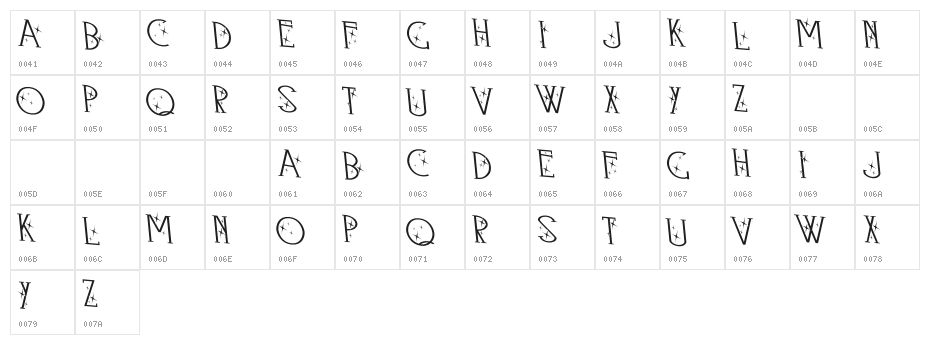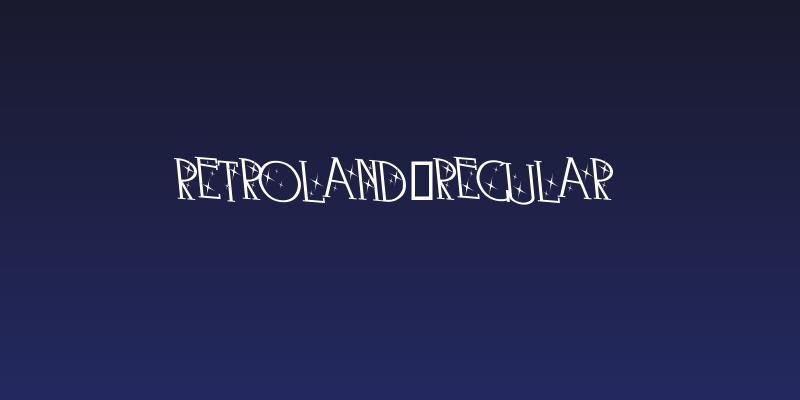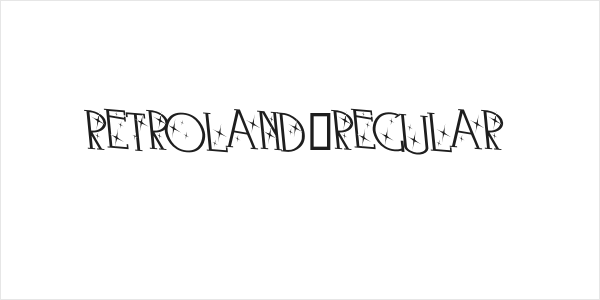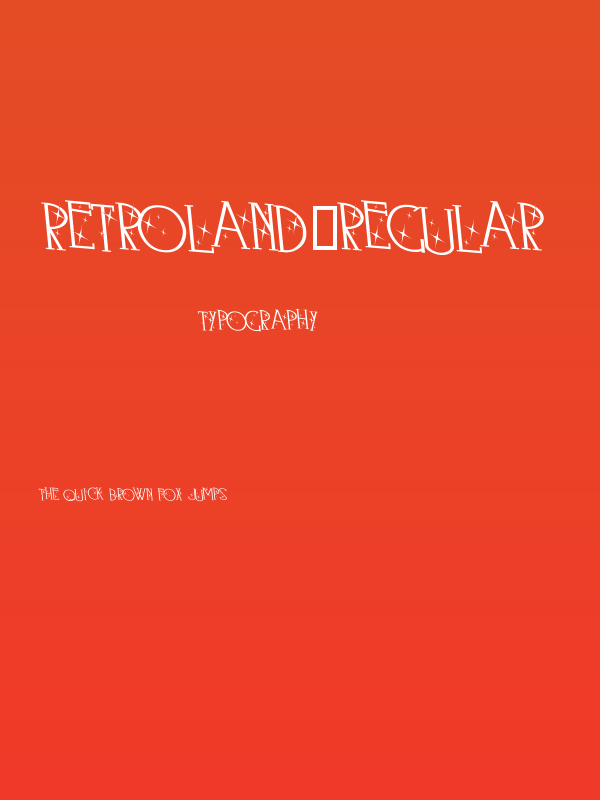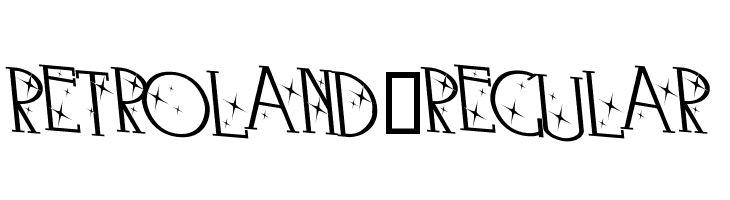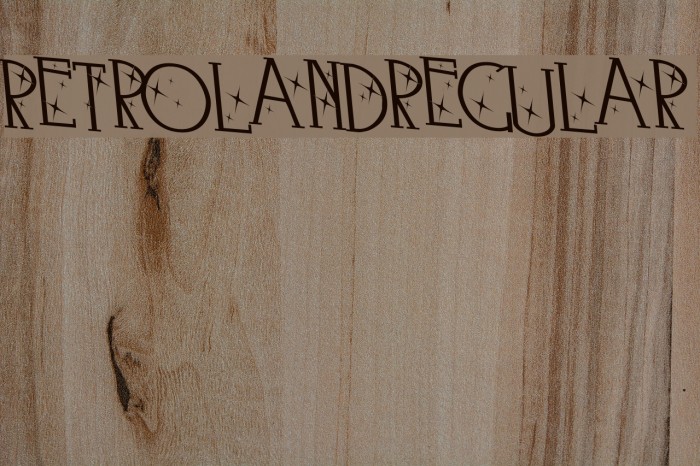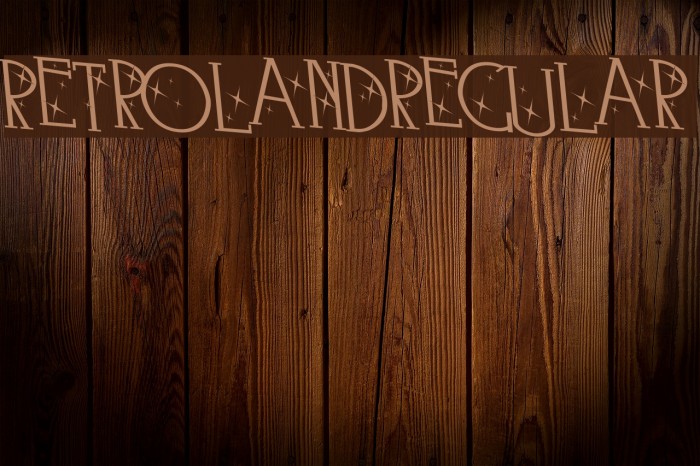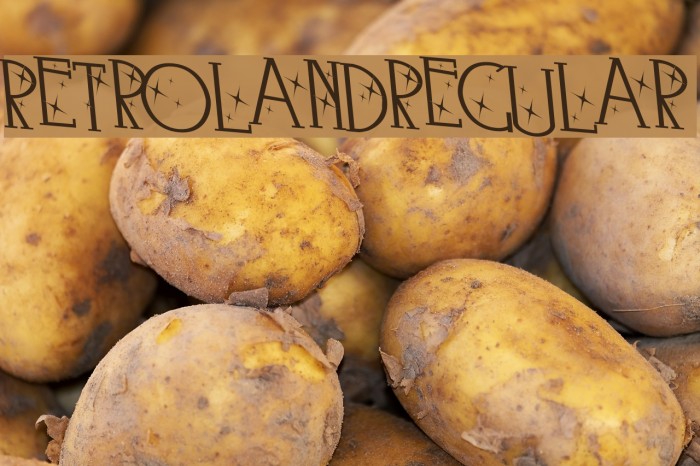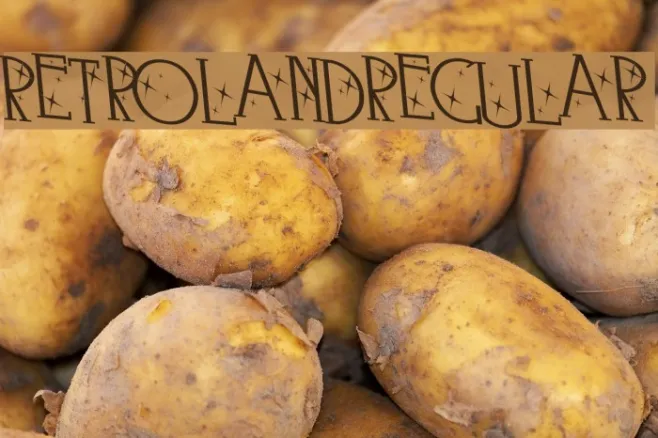
Retroland-Regular Font
Retroland-Regular Description
This font exudes a playful and retro vibe, characterized by its bold, angular letters adorned with star-like embellishments. The uppercase letters are particularly striking, with each character featuring a unique star pattern that adds a whimsical touch. The font's design is reminiscent of mid-20th-century aesthetics, making it ideal for projects that aim to capture a sense of nostalgia. The characters are well-spaced, ensuring readability while maintaining a decorative flair. Its distinct style makes it suitable for creative and eye-catching designs.
| Proposed Projects | Ideal for vintage-themed posters, retro branding, playful invitations, and eye-catching headlines. |